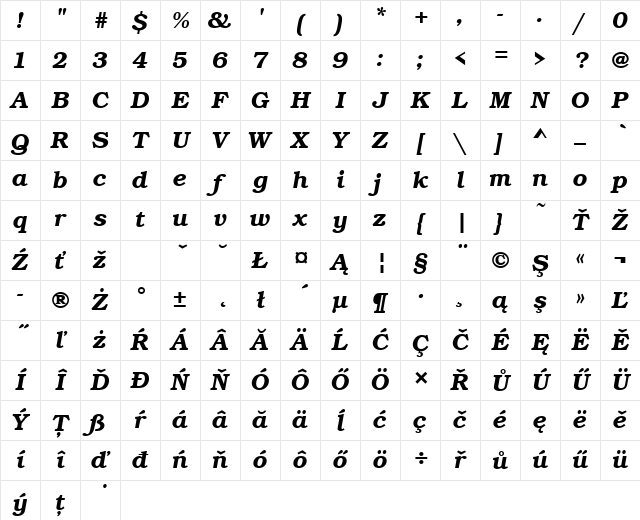
BookmanItcTEEDemBol Italic
Design Context for BookmanItcTEEDemBol
BookmanItcTEEDemBol is a composed and adaptable typeface that performs quietly and consistently across a wide range of design contexts. The slanted form adds forward momentum and visual energy.
Pro Tip: Use BookmanItcTEEDemBol for emphasis, pull quotes, and subheadings where its slanted energy can add rhythm to the layout.